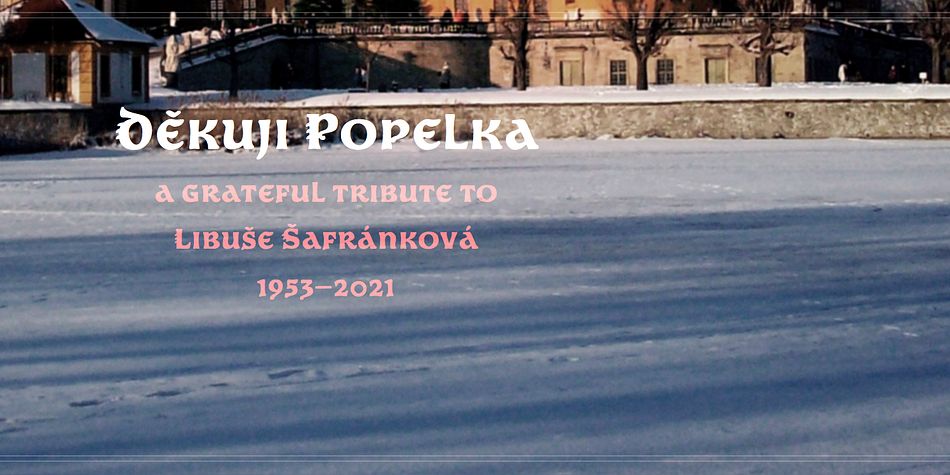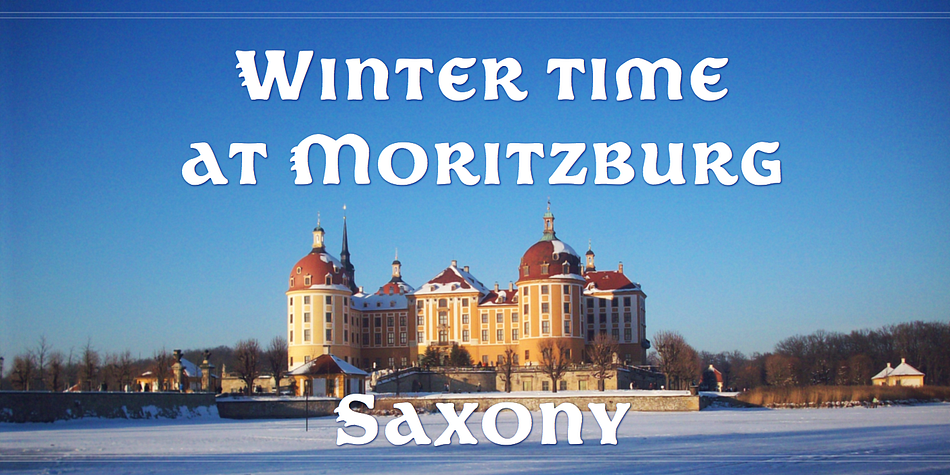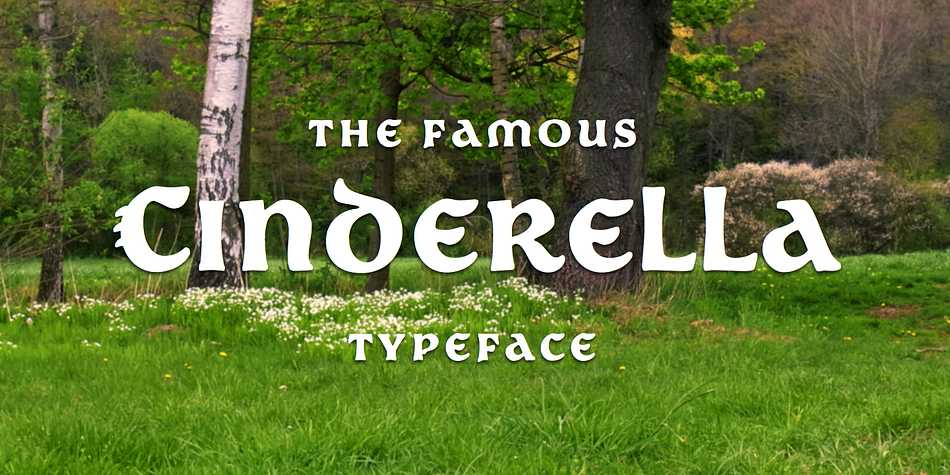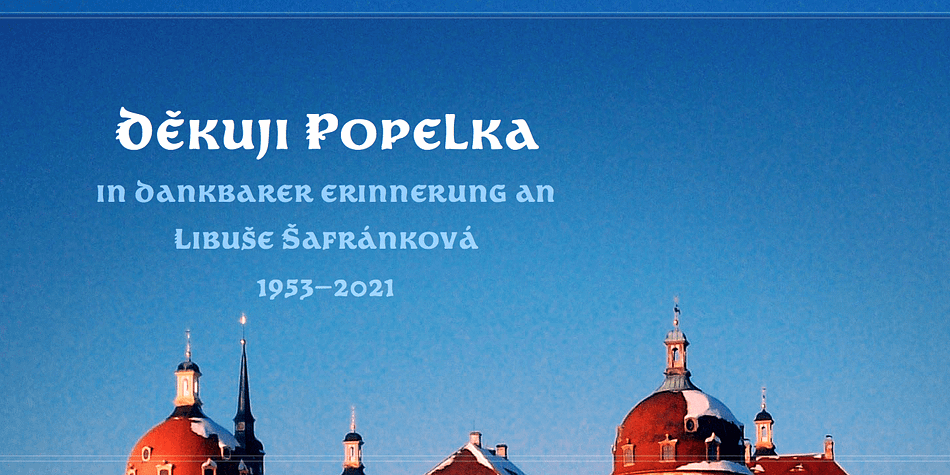
Designed by Andreas Stötzner, Popelka is a historical font published by Andreas Stötzner.
Popelka is Czech for Cinderella. The Czech-German co-production fairy tale movie “Tři oříšky pro Popelku” (“Three hazelnuts for Cinderella”) saw its premier 1973 and has gained cult status in several countries. The opening credits are set in a custom made bold uncial lettering style.
Popelka is a tribute to this famous film opening sequence. It is a careful interpretation of the program’s opening titles lettering, designed by Andreas Stötzner.
Popelka contains a complete pan-European character set and also supports Turkish.